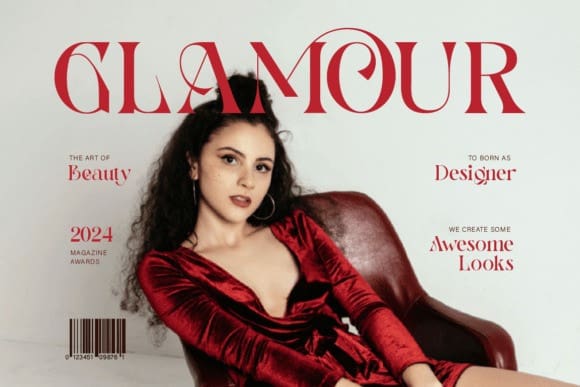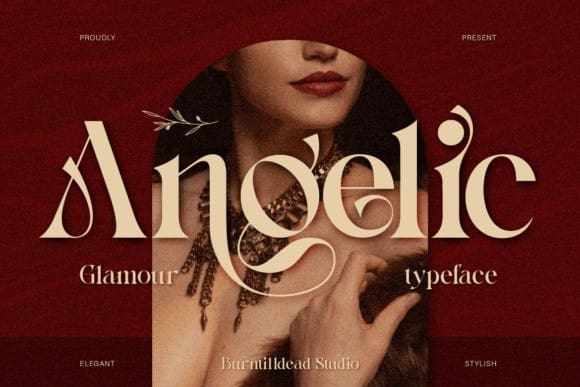
Angelic Serif Font
Angelic Serif Font, our serif typeface exudes luxury, elegant and modernity. With clean lines and elegant curves, it brings unique and classy look to any design project. Perfect for luxury themes projects, fashion magazines, high end branding, editorial design and luxurious invitations.